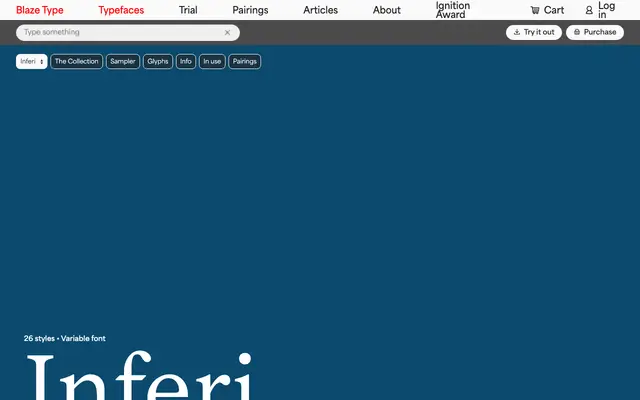
Inferi
Blaze Type · Matthieu Salvaggio · 2021
A Garalde-rooted serif by Matthieu Salvaggio, spanning 13 weights with italics and variable font support, aimed at book, editorial and poster work.
Built on the tradition of Garalde typefaces, Inferi pairs squared edges with rounded roman finishes, giving it a restrained print quality that reads well on screen. The italic cuts in a more contemporary direction, lending contrast and rhythm to complex layouts. Thirteen weights from Dante to Black, all with matching italics, make it a versatile tool for both body text and display settings.
Blaze Type describe Inferi as rooted in Garalde print-style letterforms, with squared edges and rounded roman finishes; this places it firmly in the humanist/old-style serif tradition associated with Garamond and Jenson.